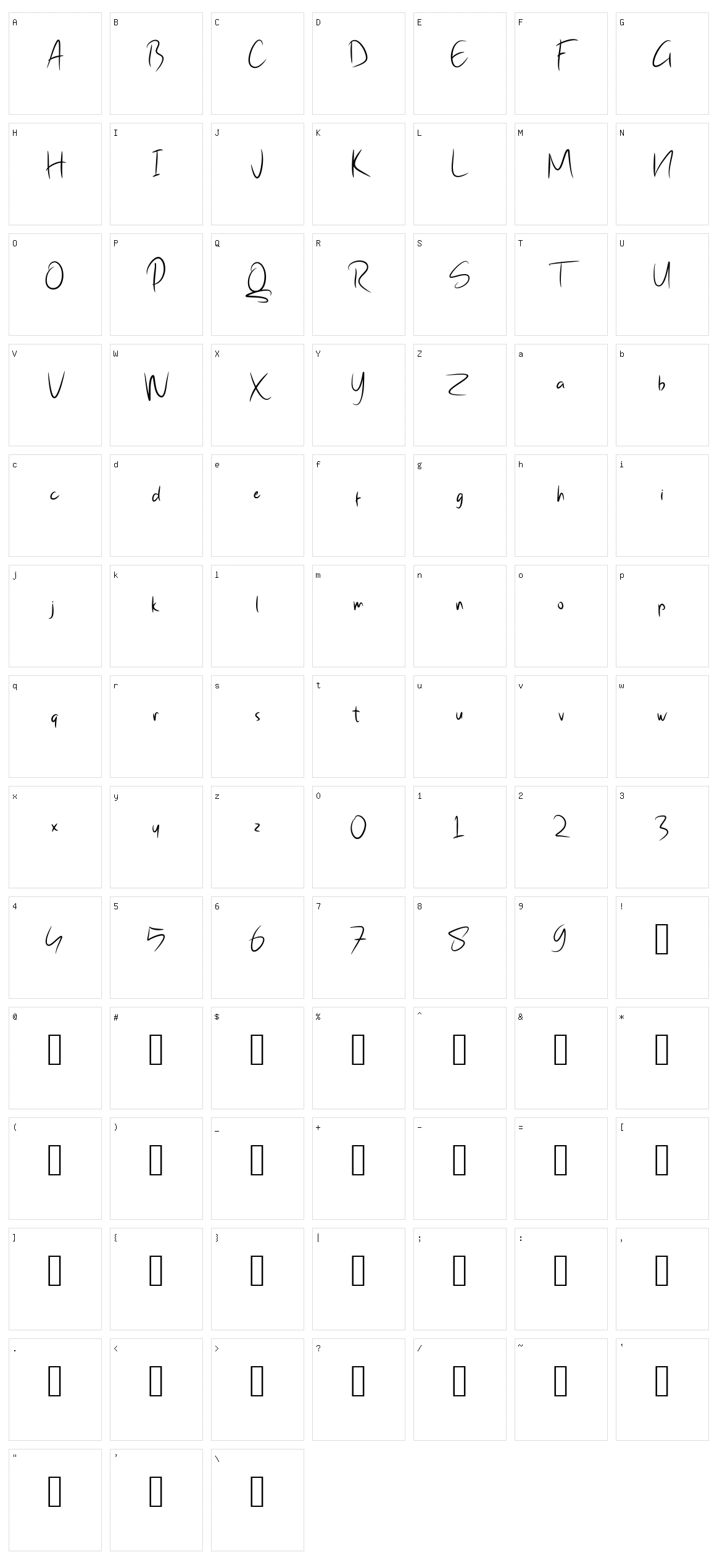
The free font Little Wish is carefully designed by Thanoestd, showcasing a thoughtful balance of creativity and usability and falls under the Script font style. When you download the ZIP file, it contains only 1105.18 KB of font files, making it lightweight and quick to download. Please review the license details below to understand permitted usage and distribution rights. If license information is not available, we recommend using this font for personal projects only or contacting the author directly for commercial usage permissions.